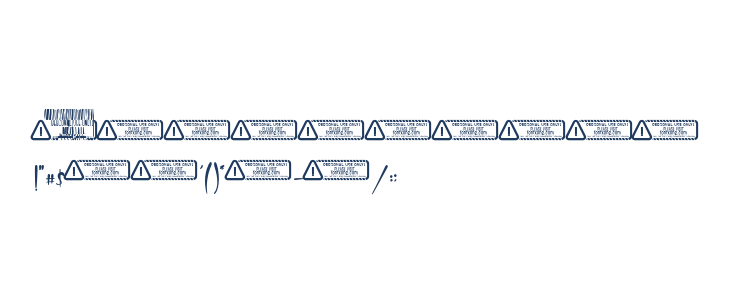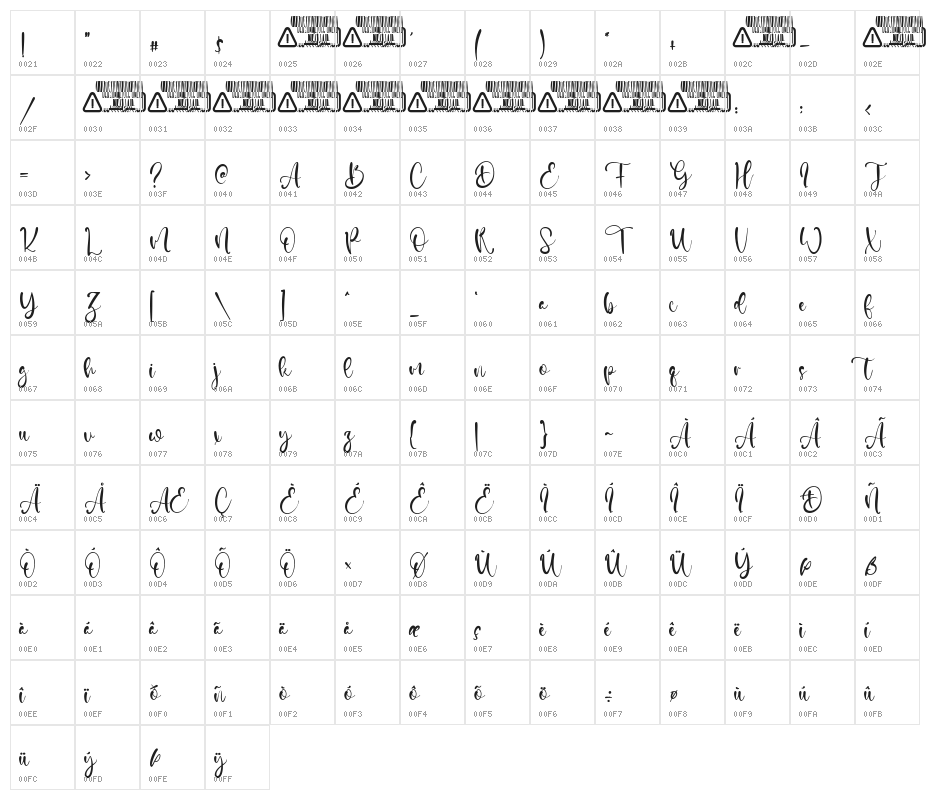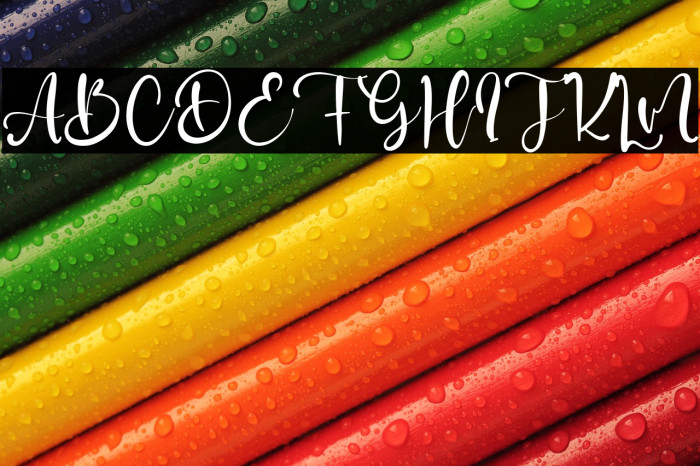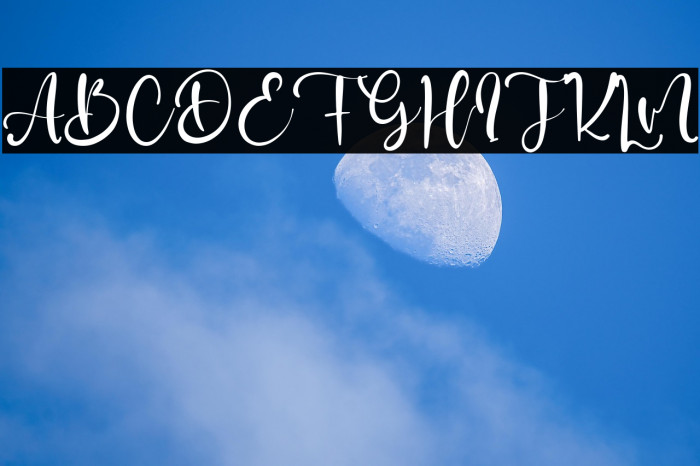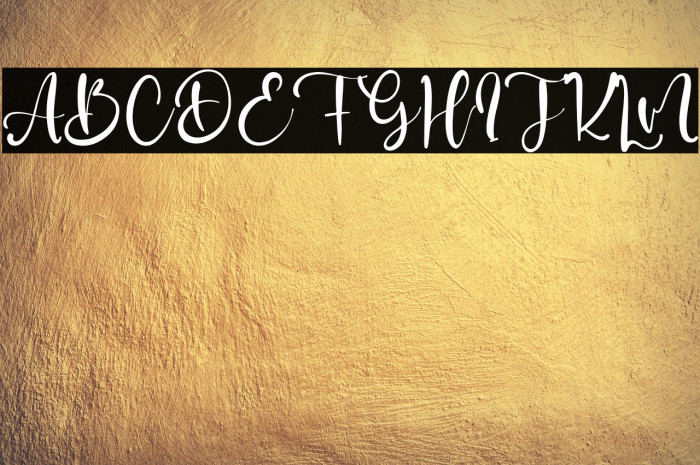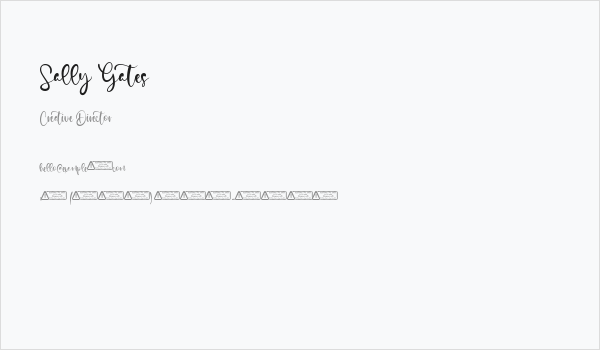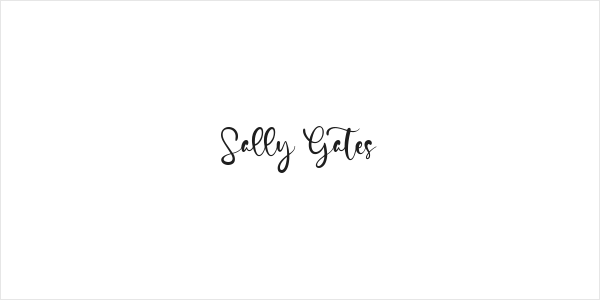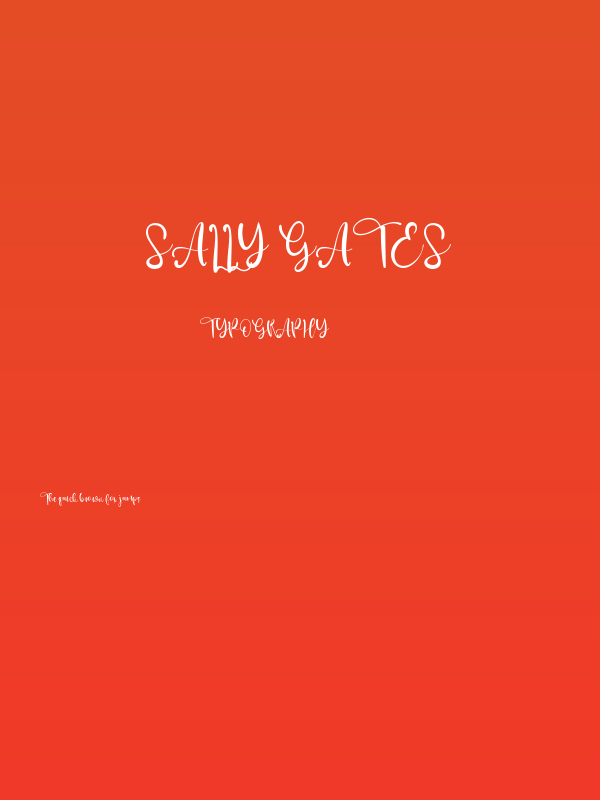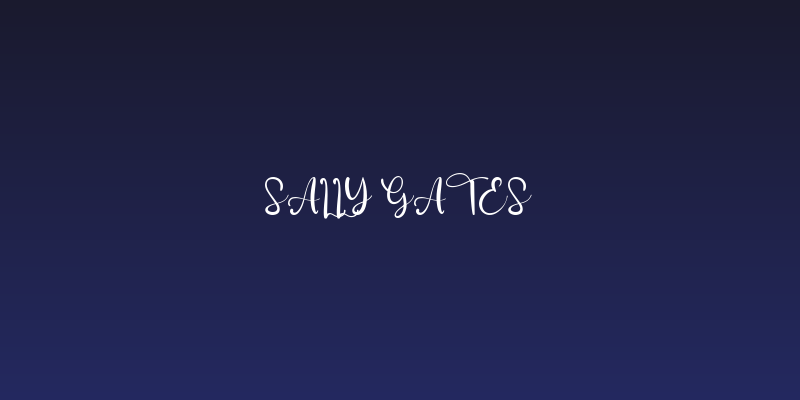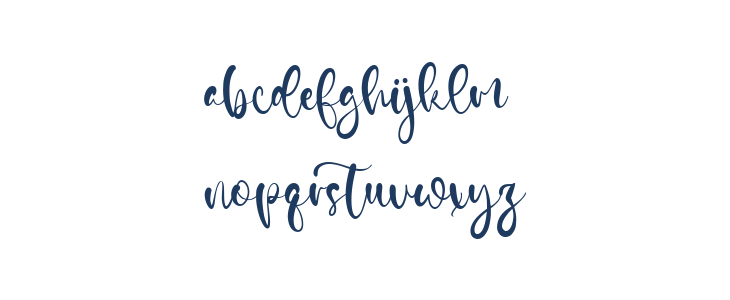
Sally Gates Font
Sally Gates Description
This font exhibits a flowing, cursive style with elegant, sweeping strokes that give it a sophisticated and artistic appearance. The uppercase letters are characterized by their dramatic flourishes and loops, while the lowercase letters maintain a consistent, smooth flow. The overall design is reminiscent of calligraphy, with a modern twist that makes it suitable for contemporary designs. The characters are well-spaced, providing a balanced and readable text. The font includes a full set of uppercase and lowercase letters, numerals, and a selection of special characters, making it versatile for various design needs.